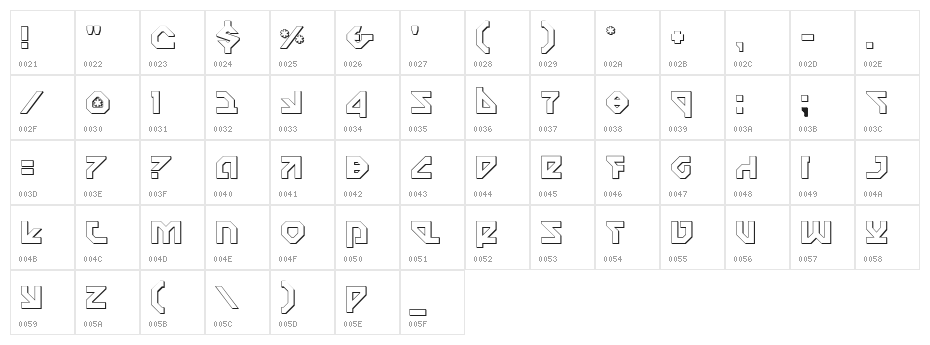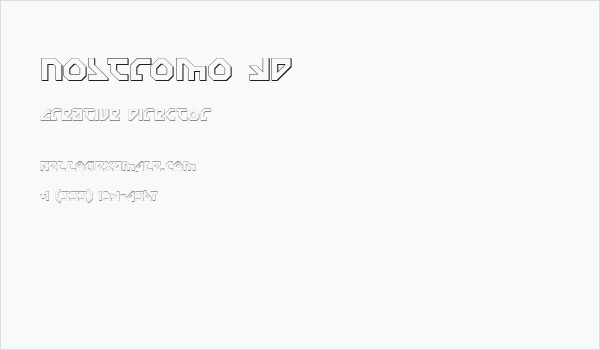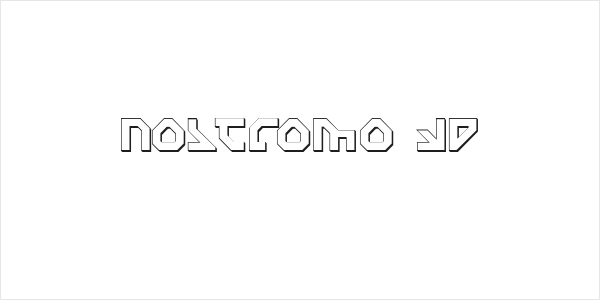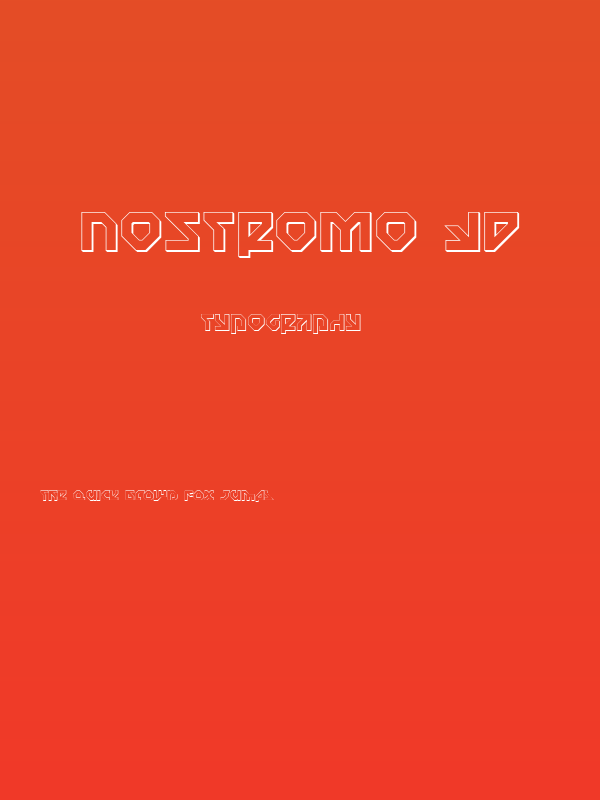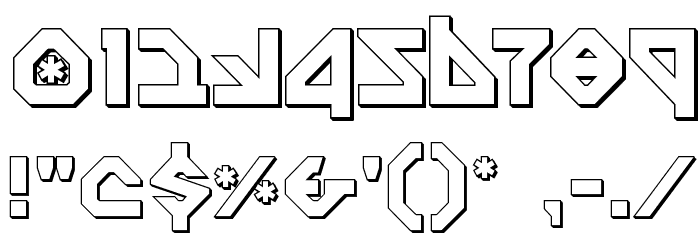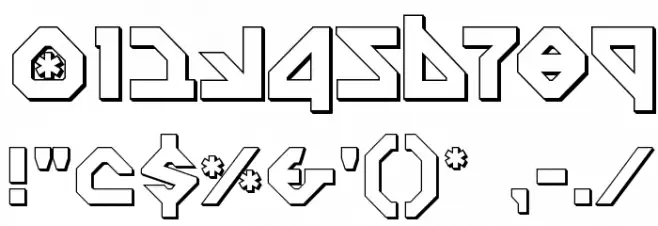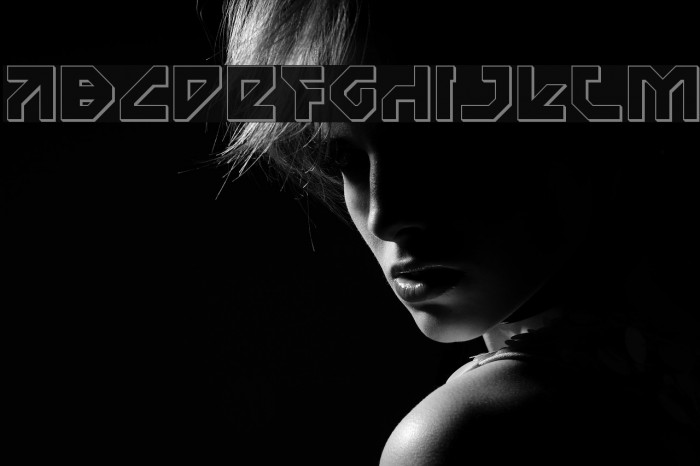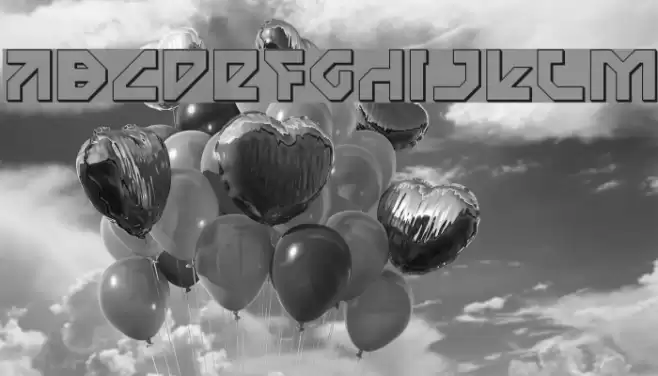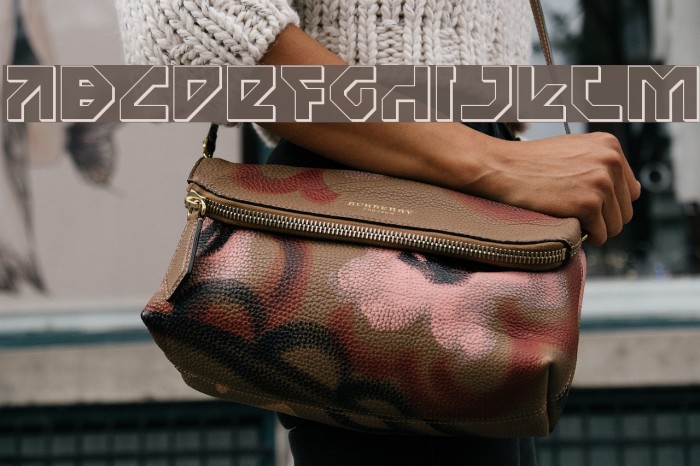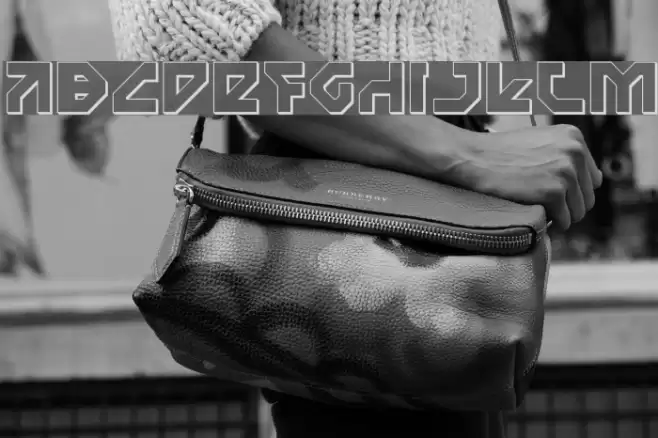
Nostromo 3D Font
Nostromo 3D Description
This font features a bold, geometric design with a three-dimensional effect, giving each character a futuristic and industrial appearance. The letters are constructed with sharp angles and straight lines, creating a sense of depth and structure. The uppercase and lowercase characters maintain a consistent style, while the numbers and special characters complement the overall aesthetic. The font's unique style makes it stand out, with a focus on symmetry and precision. Its design is reminiscent of sci-fi themes, making it suitable for projects that require a modern and edgy look.